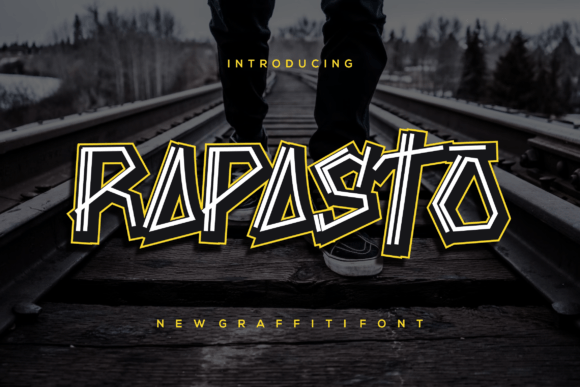
Behold, Rapasto Font – a modern, captivating display font that will transform your design projects into masterpieces. Crafted with precision by the brilliant mind of kalingga.albert, Rapasto Font is not just a font; it's an experience that will ignite your creativity and leave a lasting impression on your audience.
Immerse yourself in the world of Rapasto Font, a realm where boldness and authenticity intertwine seamlessly. Its striking presence commands attention, making it the perfect choice for projects that demand impact and individuality. From logos that roar with confidence to t-shirt designs that speak volumes, Rapasto Font is your ultimate weapon of expression.
Unleash the untapped potential of your branding endeavors with Rapasto Font. Its versatility knows no bounds, adapting effortlessly to a multitude of contexts. Whether you're designing for the digital realm or the physical world, Rapasto Font will elevate your projects to new heights of excellence.
Journey through the boundless possibilities that await you with Rapasto Font. Its carefully crafted characters dance harmoniously on the page, captivating the eyes and stirring the emotions. Create designs that resonate with your audience, leaving an imprint on their minds that will linger long after they've encountered your work.
Rapasto Font is not just a font; it's a statement. A declaration of your unique style and unwavering commitment to excellence. Embrace the power of Rapasto Font and embark on a creative journey that will redefine your design horizons.
- Striking, bold, and authentic design
- Suitable for a wide range of branding projects
- Perfect for logos, t-shirt printing, esports, and more
- Commands attention and leaves a lasting impression
- Versatile and adaptable to various contexts
- Elevates your designs to new heights of excellence